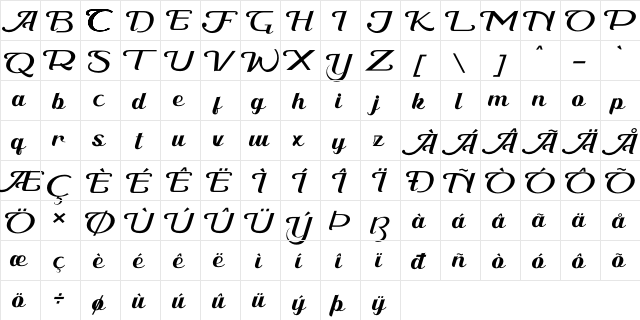
Cathena Regular
| Designer | joko setiono |
Design Context for Cathena Typeface
Cathena is a composed and adaptable typeface that performs quietly and consistently across a wide range of design contexts.